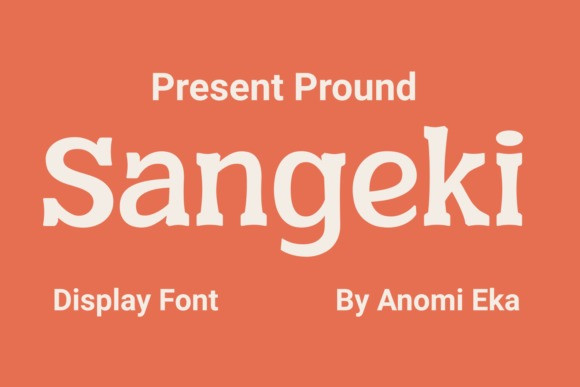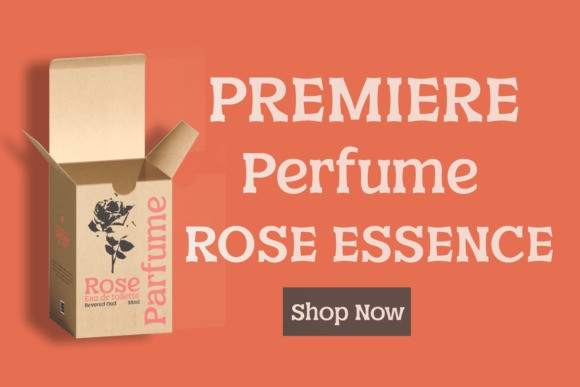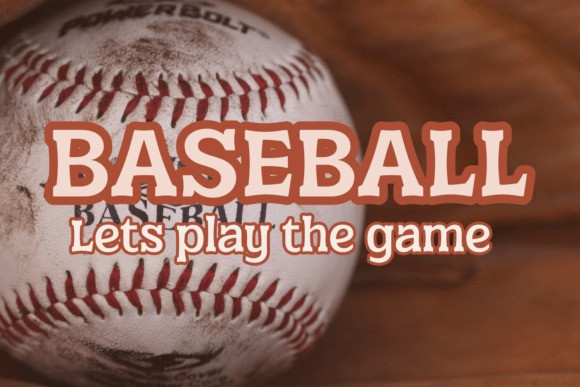
Sangeki Font
Sangeki is a fun display serif font. Masterfully designed to become a true favorite, this font has the potential to bring each of your creative ideas to the highest level!
Very suitable for logotypes, stickers, packaging designs, Cricut projects, headlines, brand identity, t-shirt or apparel industry, posters, magazines, books, YouTube, Instagram, websites, or any of your creative design projects.